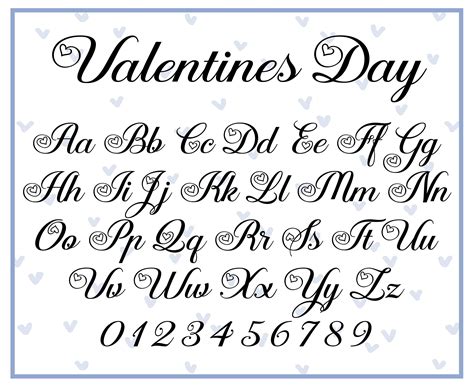
Valentine's Day is a time to express love and affection, and one of the best ways to do this is through thoughtful and creative designs. Whether you're crafting a heartfelt card, designing a romantic invitation, or creating digital art, choosing the right Valentine's Day font can make all the difference. The right font can set the mood, convey emotion, and make your message stand out. In this post, we'll explore the importance of selecting the perfect Valentine's Day font, provide tips on how to choose one, and offer some popular font options to inspire your next romantic project.
Why Choose the Right Valentine's Day Font?
The font you choose for your Valentine's Day project can significantly impact its overall appeal and effectiveness. A well-chosen font can:
- Enhance the emotional impact of your message.
- Make your design more visually appealing.
- Convey the tone and style of your project.
- Ensure readability and legibility.
For example, a script font can add a touch of elegance and romance, while a bold, modern font can convey a sense of strength and confidence. Understanding the different types of fonts and their characteristics can help you make an informed decision.
Types of Valentine's Day Fonts
There are several types of fonts that are particularly well-suited for Valentine's Day projects. Here are some of the most popular categories:
Script Fonts
Script fonts mimic handwriting and calligraphy, adding a personal and romantic touch to your designs. They are perfect for invitations, cards, and other romantic correspondence. Some popular script fonts include:
- Allura
- Great Vibes
- Lobster
- Pacifico
Serif Fonts
Serif fonts have small decorative strokes at the ends of letters, giving them a classic and timeless look. They are often used in formal invitations and elegant designs. Some popular serif fonts include:
- Playfair Display
- Merriweather
- Lora
- Roboto Slab
Sans-Serif Fonts
Sans-serif fonts do not have the decorative strokes found in serif fonts, giving them a clean and modern appearance. They are versatile and can be used in a variety of designs, from casual to formal. Some popular sans-serif fonts include:
- Montserrat
- Open Sans
- Lato
- Raleway
Display Fonts
Display fonts are designed to be used at large sizes and are often highly stylized. They are perfect for headlines, logos, and other prominent text elements. Some popular display fonts include:
- Bebas Neue
- Oswald
- Barlow
- Poppins
How to Choose the Perfect Valentine's Day Font
Choosing the perfect Valentine's Day font involves considering several factors. Here are some tips to help you make the right choice:
Consider the Tone and Style
Think about the overall tone and style of your project. Are you going for a romantic, elegant, or playful vibe? Different fonts can convey different emotions, so choose one that aligns with your vision.
Ensure Readability
While aesthetics are important, readability is crucial. Make sure the font you choose is easy to read, especially if you're using it for longer passages of text. Script fonts, for example, can be beautiful but may be harder to read in large blocks of text.
Match the Design Elements
Your font should complement the other design elements in your project, such as colors, images, and graphics. Consider the overall aesthetic and choose a font that fits seamlessly with the rest of your design.
Test Different Fonts
Don't be afraid to experiment with different fonts. Try out a few options and see how they look in your design. You might be surprised by how different fonts can change the overall feel of your project.
Popular Valentine's Day Fonts
Here are some popular Valentine's Day fonts that you can use for your next romantic project:
| Font Name | Type | Description |
| Allura | Script | A elegant and romantic script font with a handwritten feel. |
| Great Vibes | Script | A playful and whimsical script font perfect for casual designs. |
| Playfair Display | Serif | A classic and timeless serif font with a modern twist. |
| Montserrat | Sans-Serif | A clean and modern sans-serif font with a strong, confident look. |
| Bebas Neue | Display | A bold and stylish display font perfect for headlines and logos. |
In addition to these popular options, there are many other Valentine's Day fonts available that can add a unique touch to your designs. Don't be afraid to explore different font libraries and experiment with various styles to find the perfect match for your project.
When designing for Valentine's Day, it's also important to consider the overall color scheme and design elements. Soft, romantic colors like pink, red, and white are popular choices, but you can also experiment with bolder colors and patterns to make your design stand out.